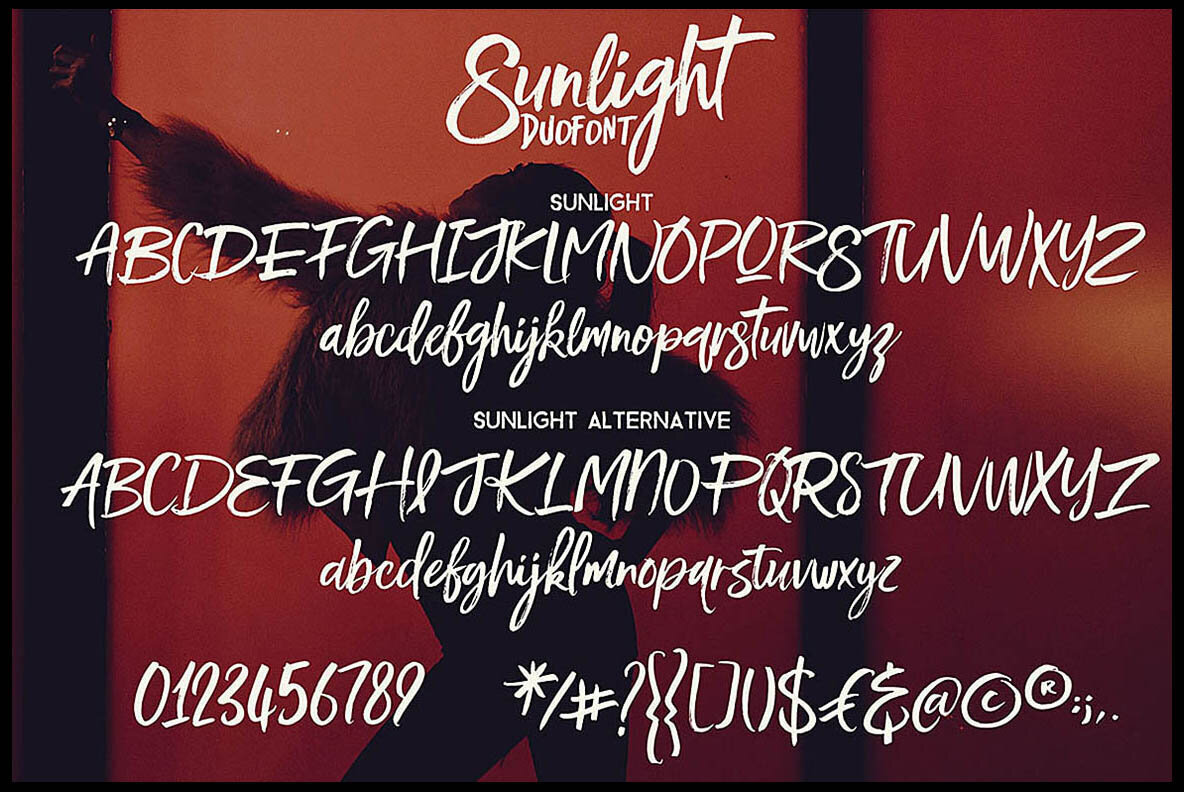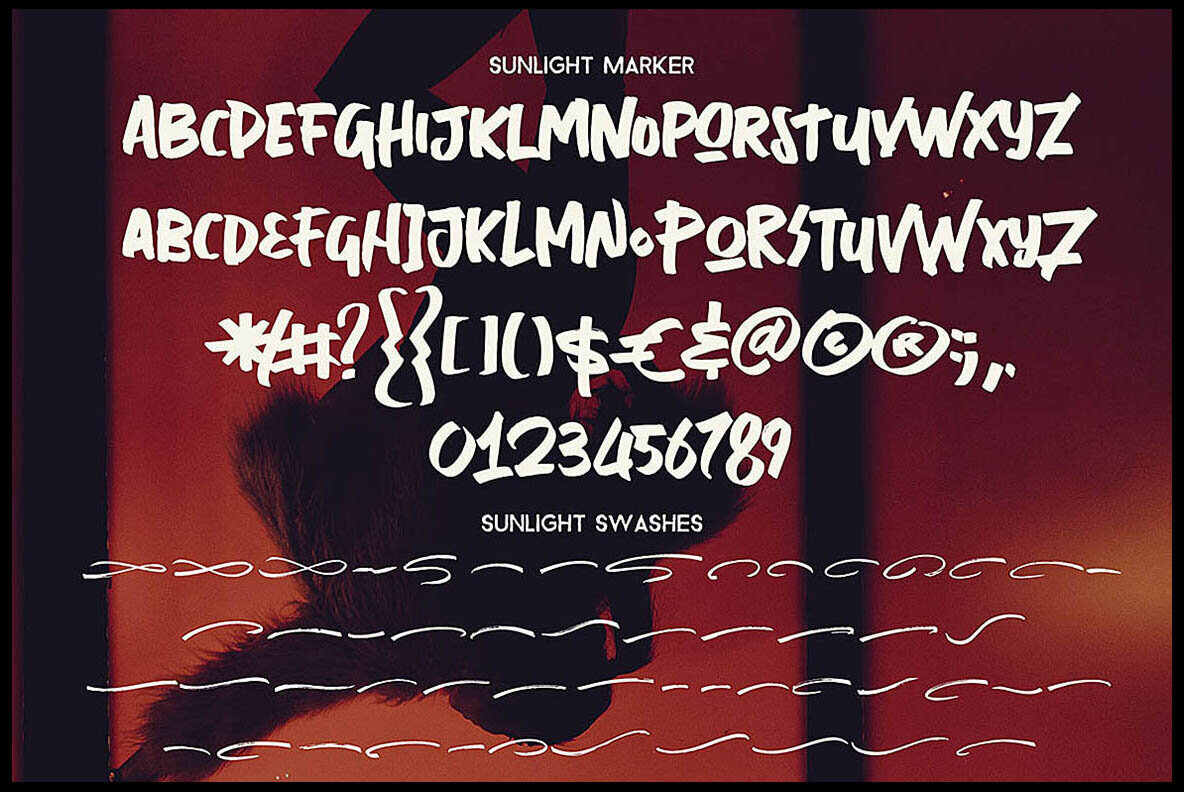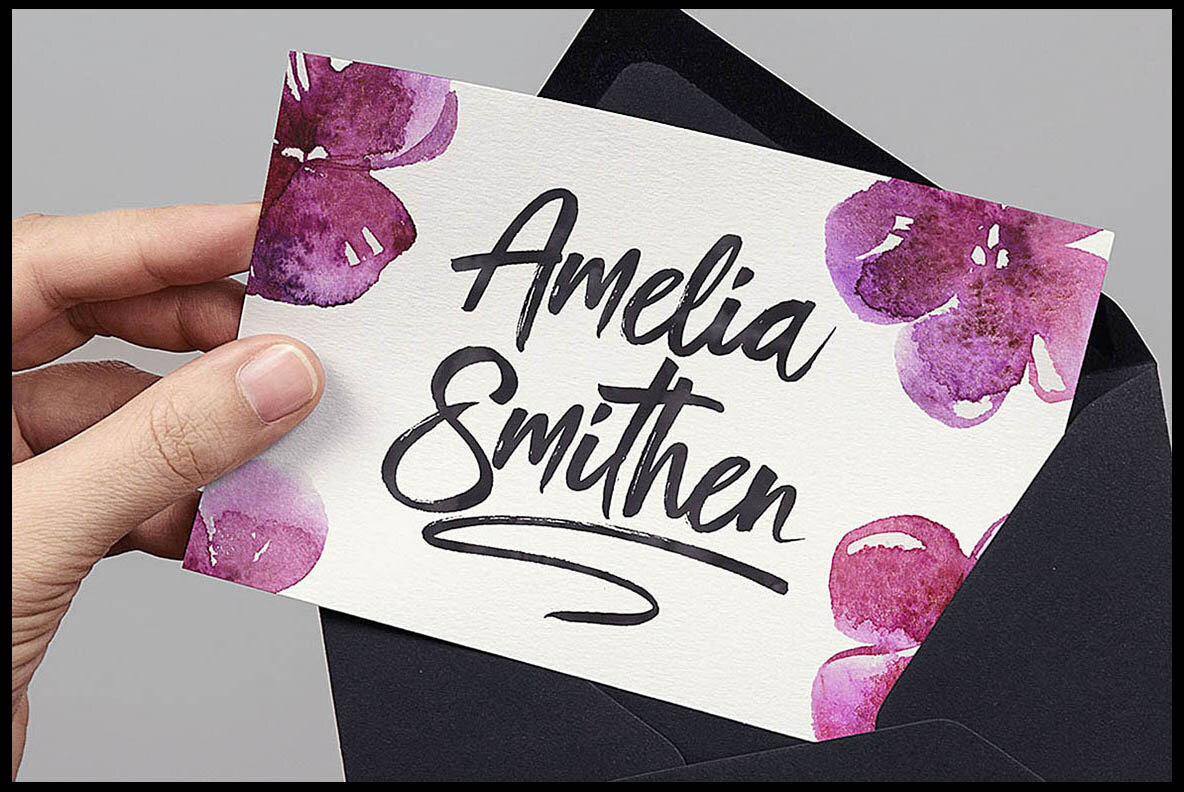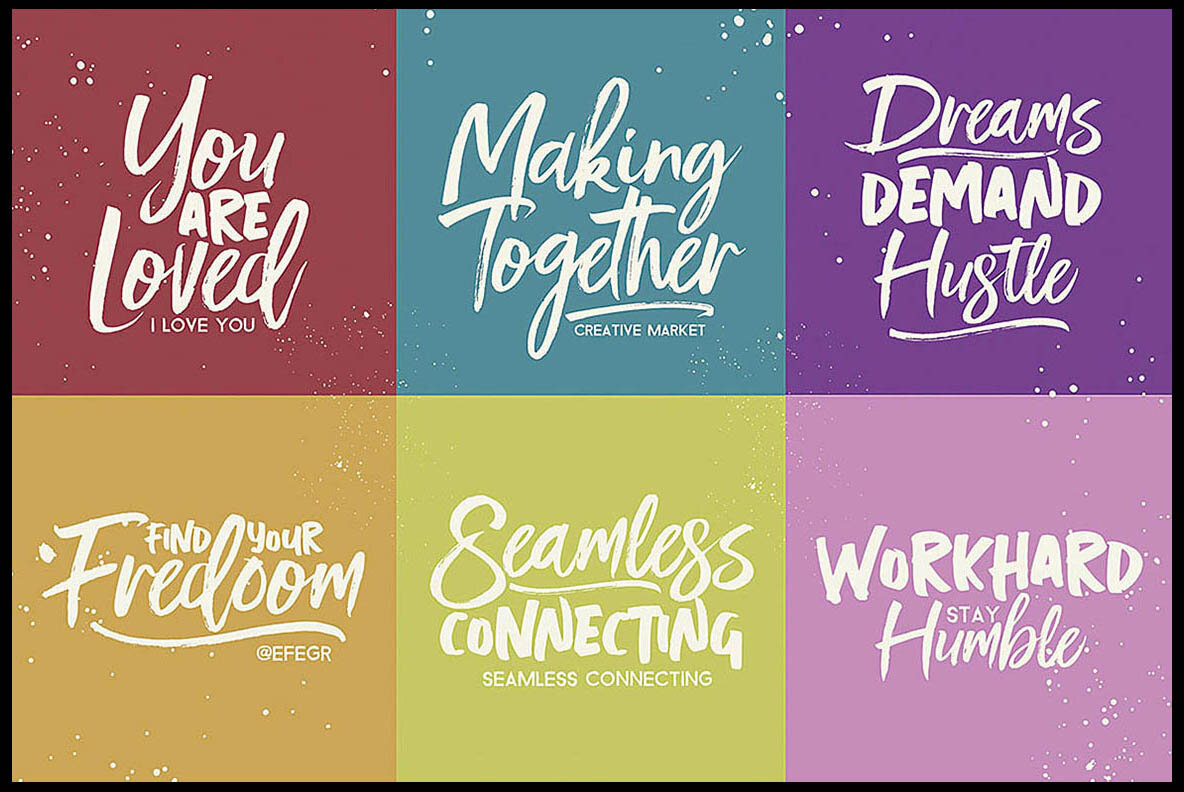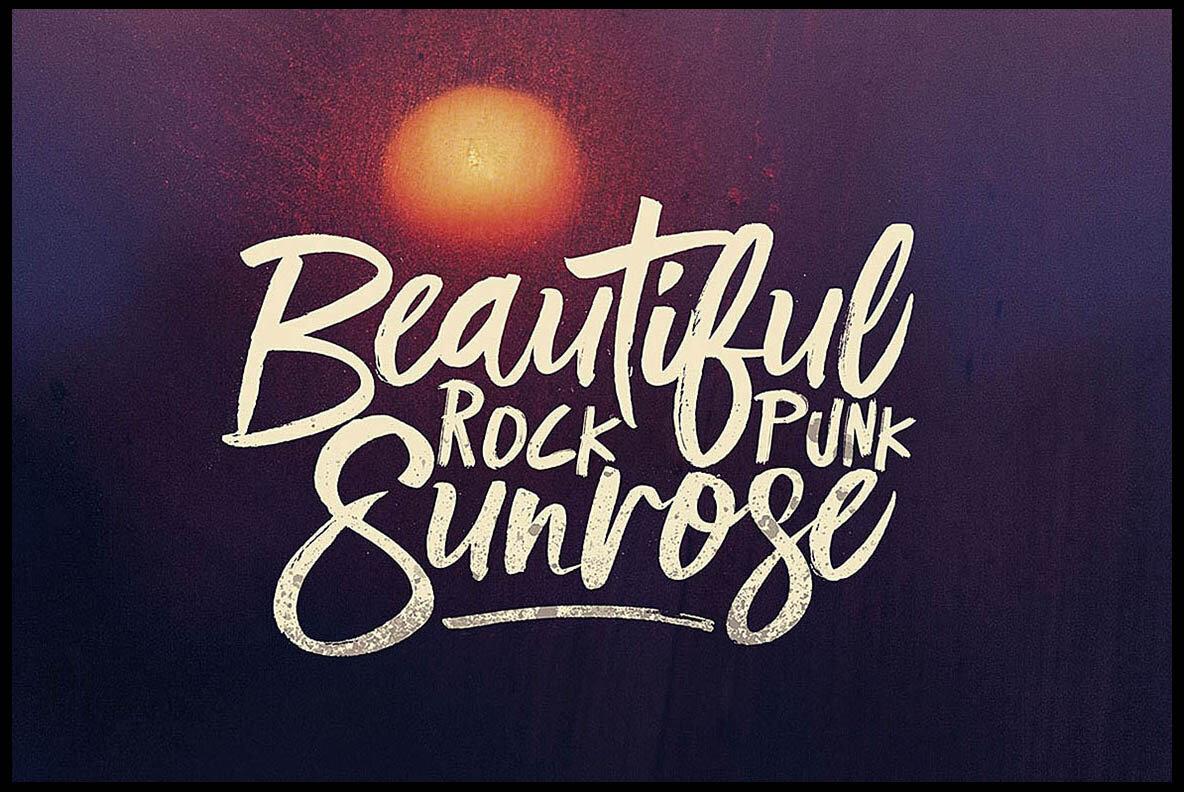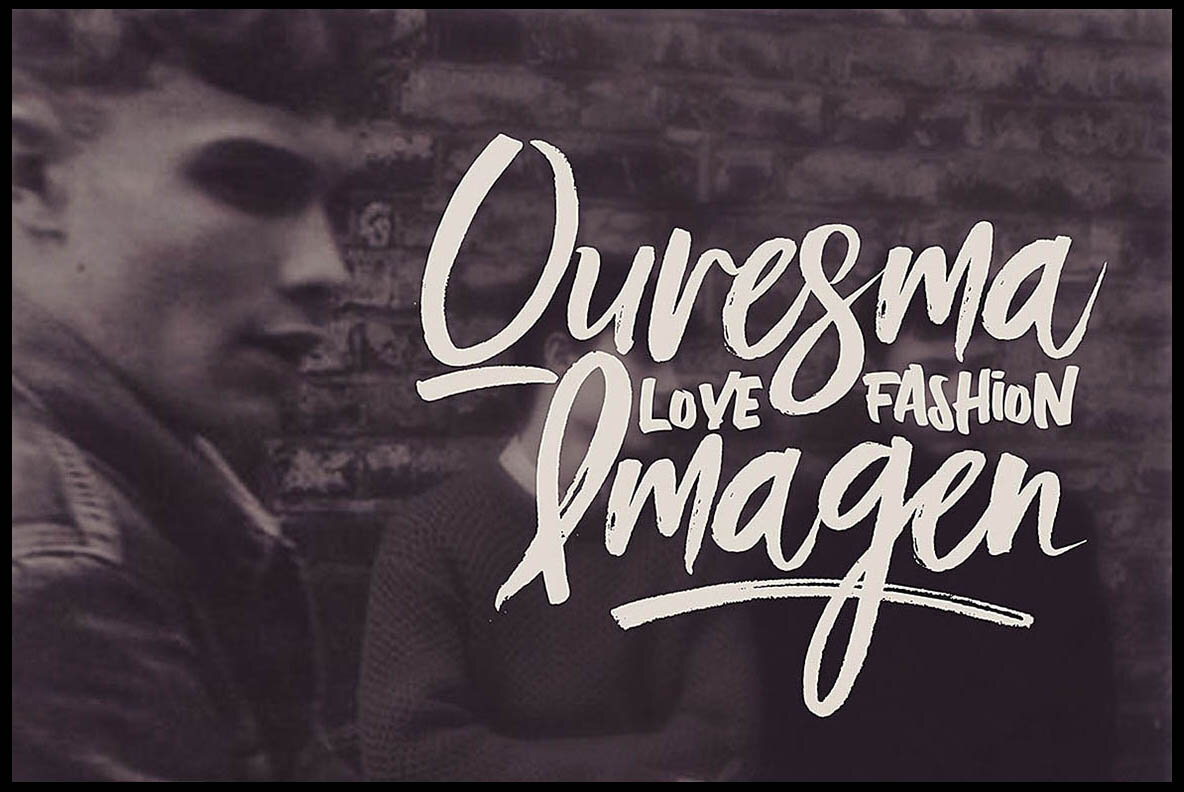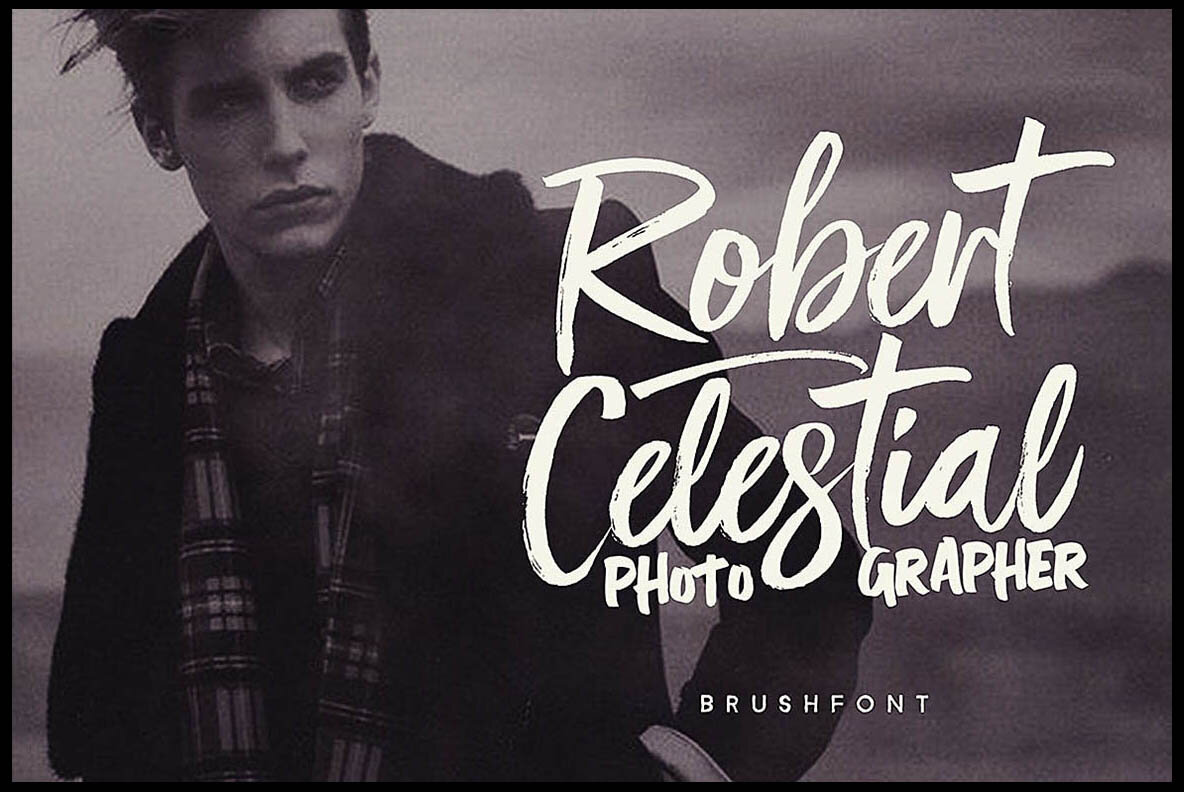
Sunlight Font Duo
The Sunlight Font Duo by Peter Olexa offers a unique combination of handwritten brush styles to elevate your latest projects. Perfect for grunge or artistic designs, this font duo provides versatility and charm.Sunlight Font Duo: Artistic Handwritten Style